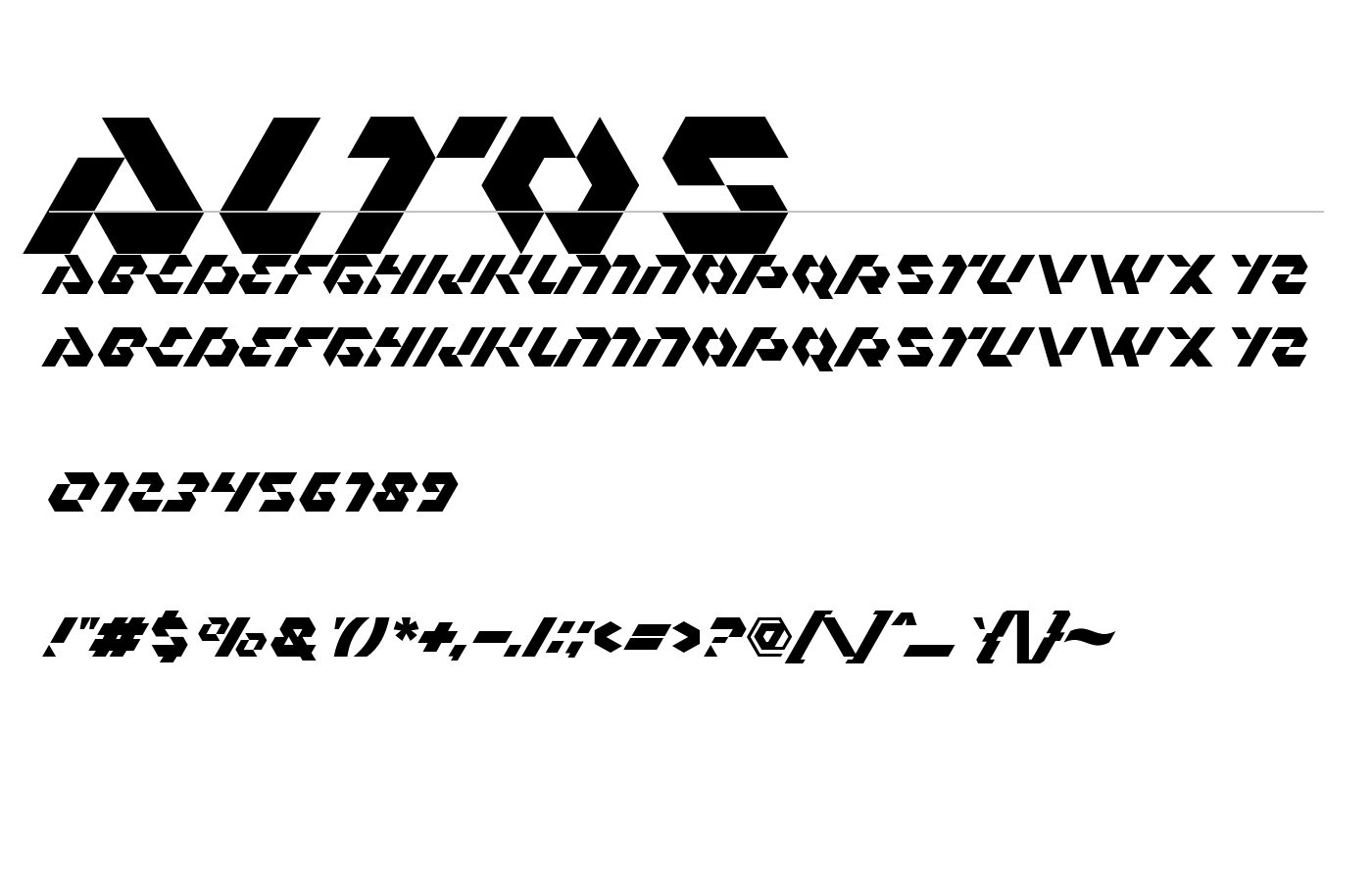
Altos is a bold, geometric sans serif font with a futuristic and angular design that features sharp, faceted edges and a condensed structure. Its high contrast and dynamic slant give it an energetic, tech-inspired feel, making it ideal for striking headlines, logos, and branding in industries like technology, gaming, and sports where a modern, edgy aesthetic is desired.
Altos Font